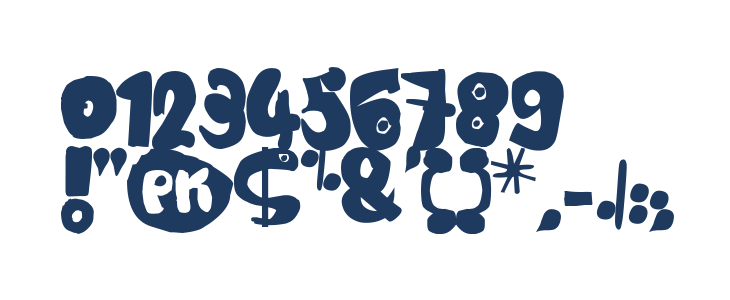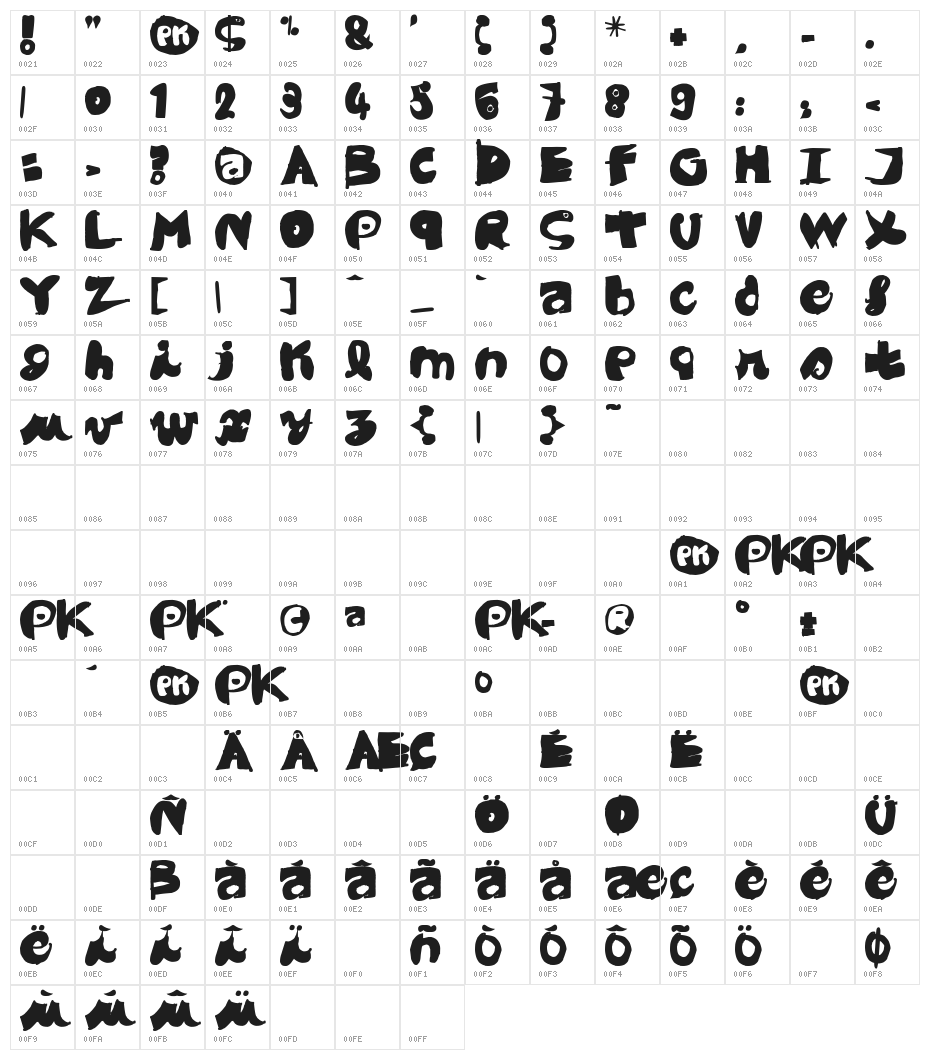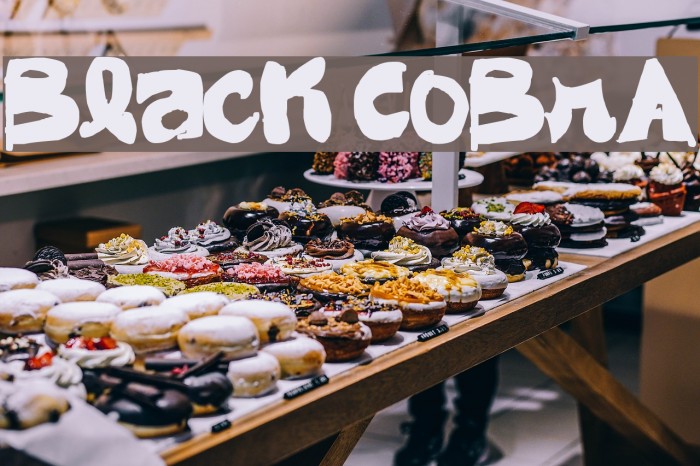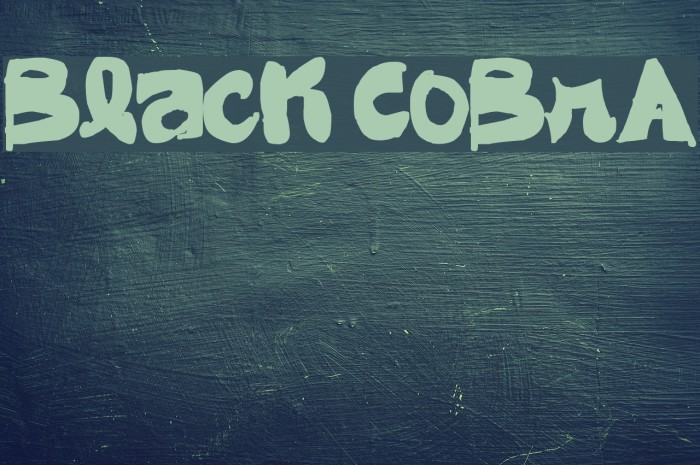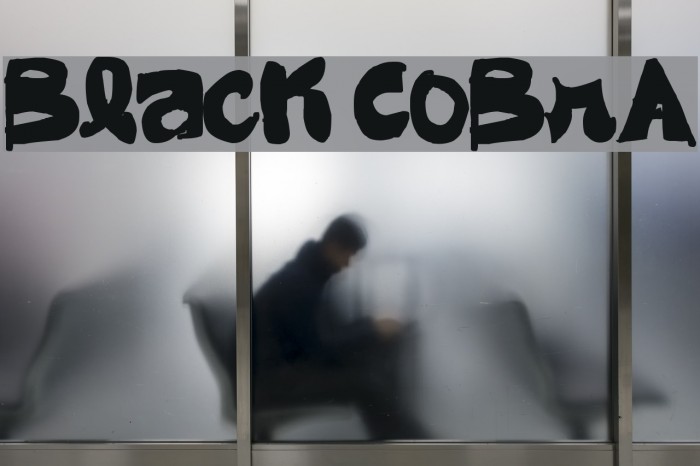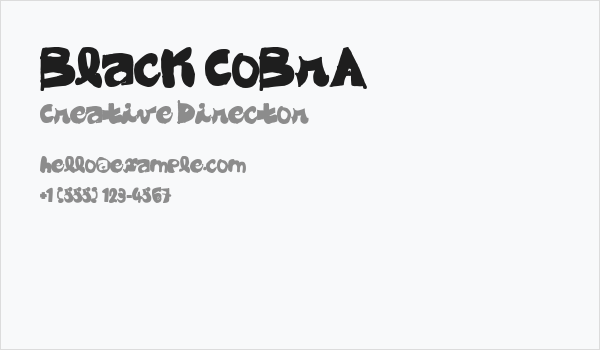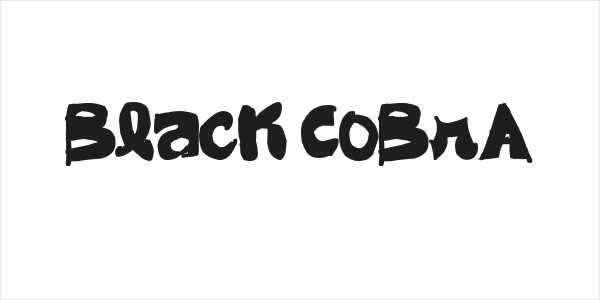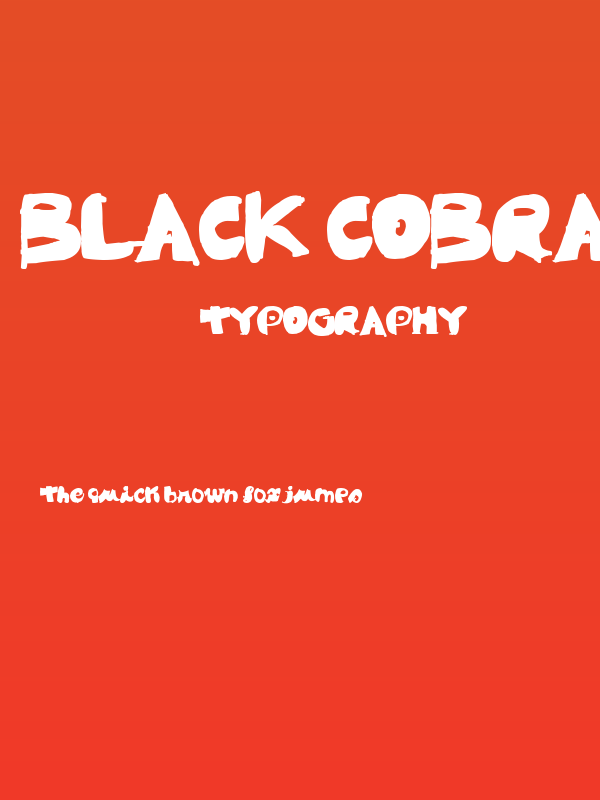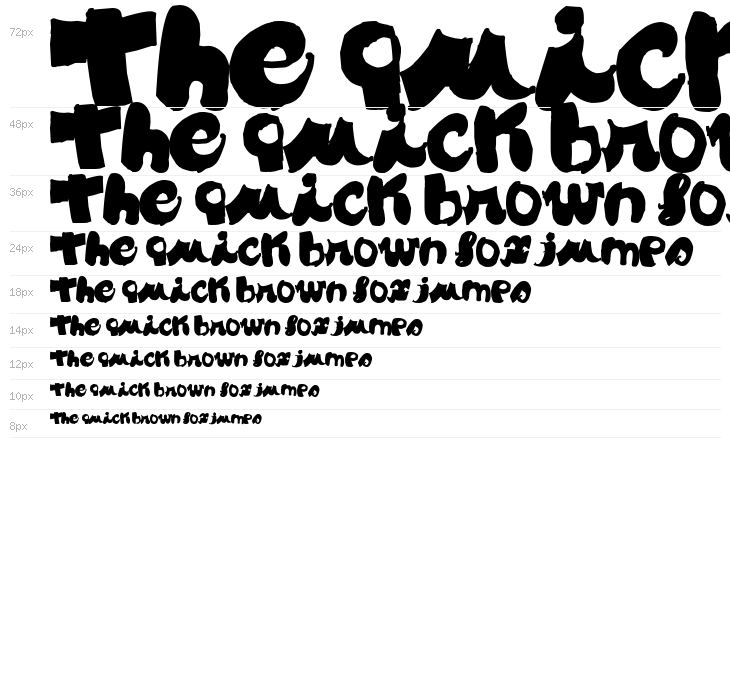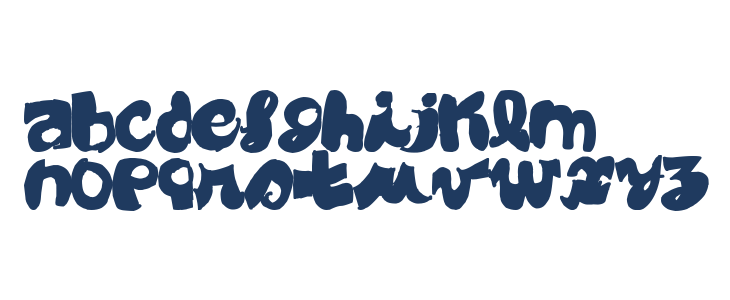
Black CoBrA Font
Black CoBrA Description
This font features a bold and playful design with a strong, artistic flair. The characters are heavily stylized, with exaggerated curves and varying thickness that give it a unique, hand-drawn appearance. The uppercase and lowercase letters maintain a consistent style, with a whimsical and slightly chaotic feel. Numbers and special characters follow the same design principles, ensuring a cohesive look across all glyphs. The font's boldness and distinctiveness make it stand out, perfect for creative and eye-catching designs.
| Proposed Projects | Ideal for posters, album covers, children's books, and creative branding projects. |